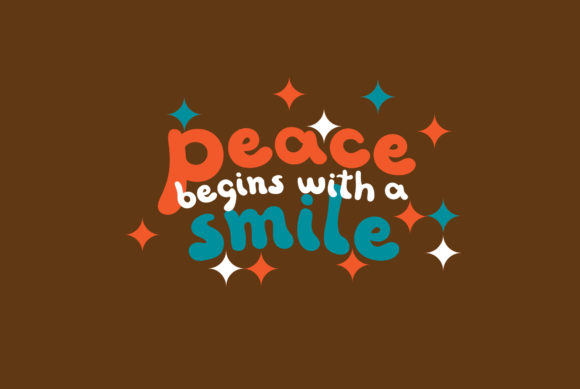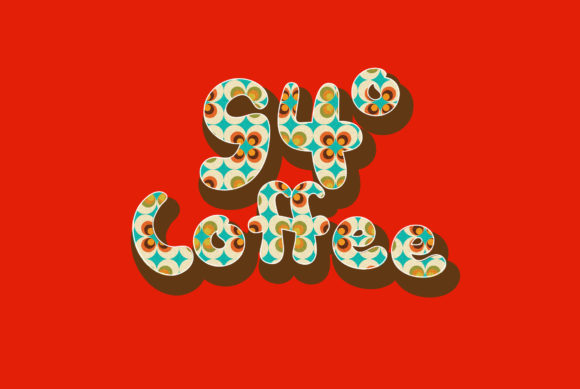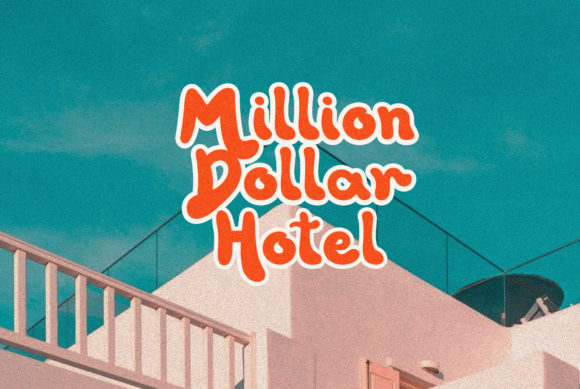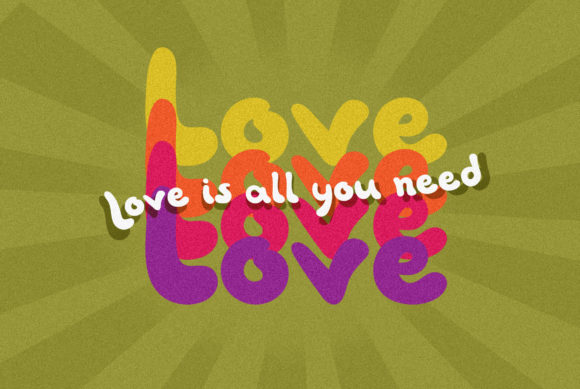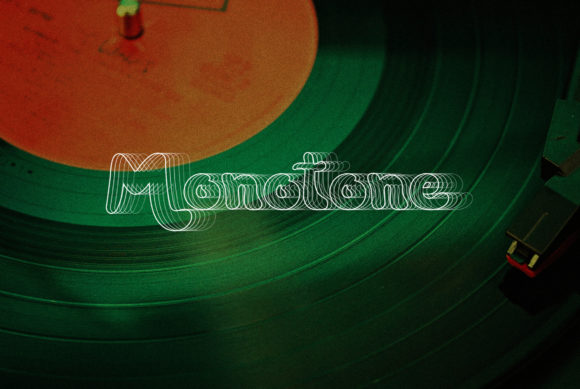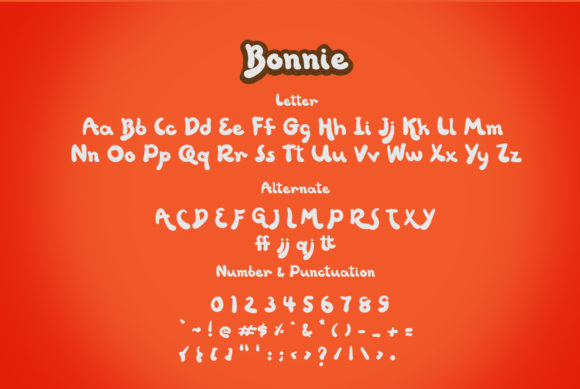
Introducing Bonnie Font: The Perfect Addition to Your Children’s Design Projects
Are you a designer or crafter looking for a fun and playful font to add a touch of whimsy to your children’s design projects? Look no further than Bonnie Font! This cool, bubbly, and retro-looking display font is perfect for creating eye-catching designs that kids will love. In this article, we’ll take a closer look at Bonnie Font, its features, and how you can use it to create amazing children’s themed designs.
What is Bonnie Font?
Bonnie Font is a display font designed to bring a touch of nostalgia and playfulness to your designs. Its retro look and feel make it perfect for creating designs that are reminiscent of childhood classics. The font is characterized by its bold, bubbly letters and irregular shapes, giving it a unique and eye-catching appearance.
Key Features of Bonnie Font
- Retro Look and Feel: Bonnie Font has a distinctive retro look that’s perfect for creating designs that are inspired by childhood classics.
- Cool and Bubbly: The font’s bold and bubbly letters are sure to grab attention and add a touch of whimsy to your designs.
- Perfect for Children’s Designs: Bonnie Font is specifically designed for use in children’s themed designs, making it perfect for projects such as kids’ party invitations, children’s book covers, and more.
- Works Well with Bright Colors: The font’s playful and irregular shapes make it a perfect match for bright, bold colors that kids love.
How to Use Bonnie Font in Your Designs
Bonnie Font is incredibly versatile and can be used in a wide range of design projects. Here are a few ideas to get you started:
- Kids’ Party Invitations: Use Bonnie Font to create fun and playful invitations for kids’ parties, complete with bright colors and playful graphics.
- Children’s Book Covers: Add a touch of whimsy to your children’s book covers with Bonnie Font, perfect for storybooks, picture books, and more.
- Kids’ Clothing and Accessories: Use Bonnie Font to create fun and playful designs for kids’ clothing and accessories, such as t-shirts, hats, and bags.
- Digital Graphics: Bonnie Font is perfect for creating digital graphics, such as social media graphics, blog posts, and more.
Tips for Getting the Most Out of Bonnie Font
Here are a few tips for getting the most out of Bonnie Font:
- Experiment with Colors: Bonnie Font works well with bright, bold colors, so don’t be afraid to experiment and find the perfect color combination for your design.
- Use it Sparingly: While Bonnie Font is perfect for headlines and titles, it can be overwhelming if used too much. Use it sparingly to add a touch of whimsy to your designs.
- Pair it with Other Fonts: Bonnie Font pairs well with other fonts, such as sans-serif fonts, to create a fun and playful contrast.
Bonnie Font is a fun and playful display font that’s perfect for children’s themed designs. Its retro look and feel, combined with its bold and bubbly letters, make it a great addition to any design project. With its versatility and ease of use, Bonnie Font is sure to become a favorite among designers and crafters. So why not give it a try and see how you can use Bonnie Font to add a touch of whimsy to your designs?